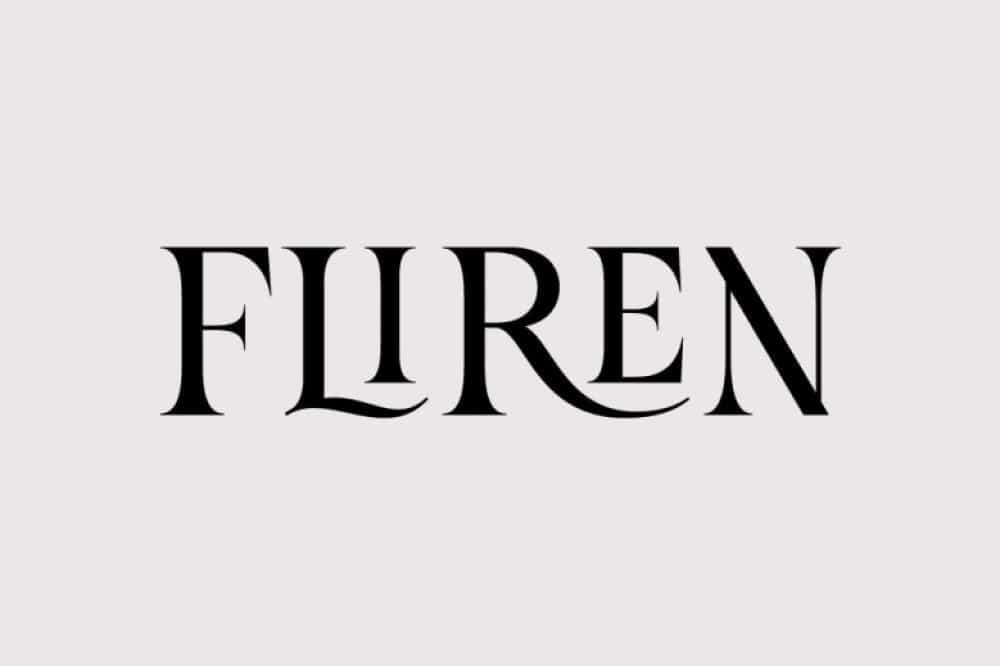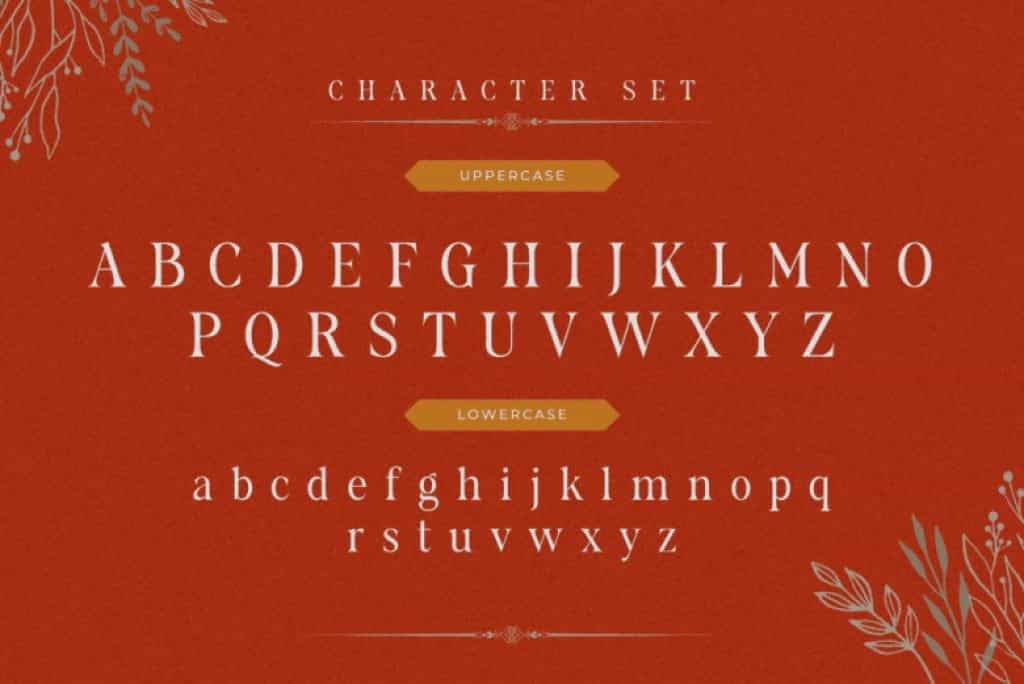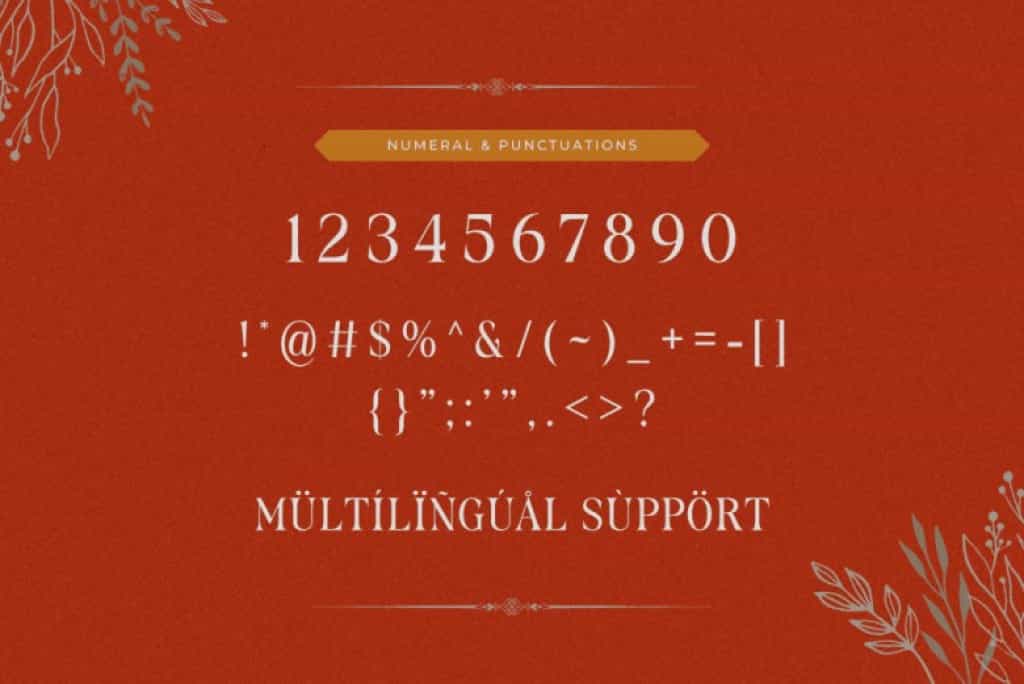
Fliren is a beautiful and classy serif font that has the elements of the contemporary style. Thanks to the smooth and sophisticated shapes of lettering, “Fliren” will be ideal for tasks which necessarily involve elegance and elegance, like premium branding, design for the book, wedding invitations, and gorgeous packaging.